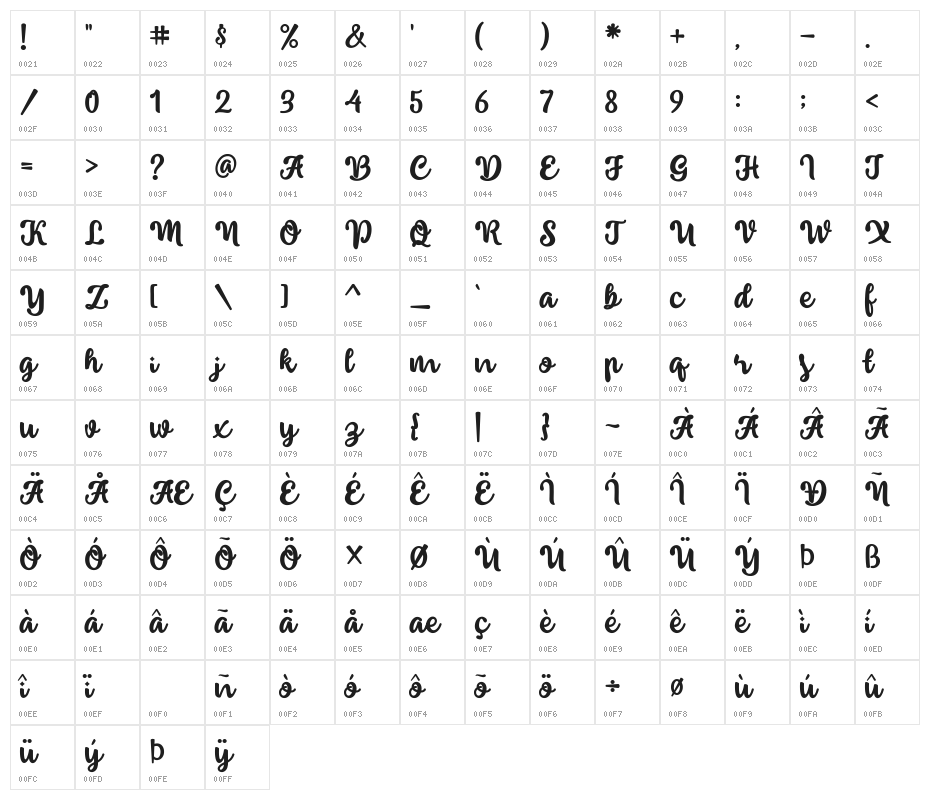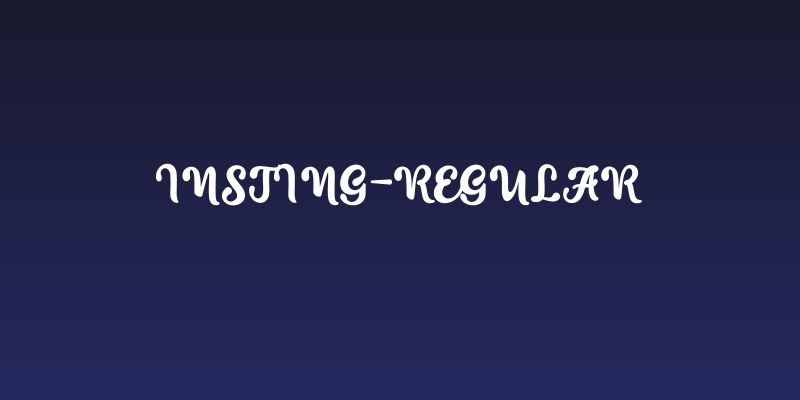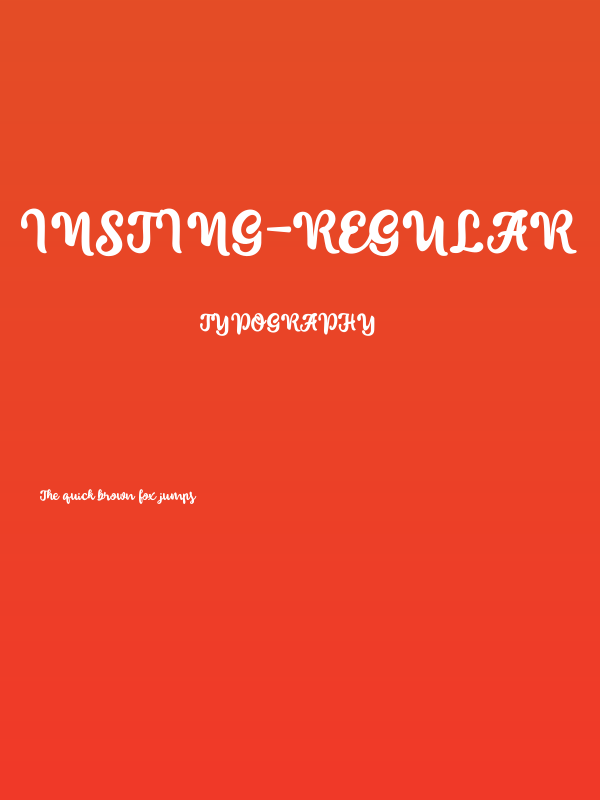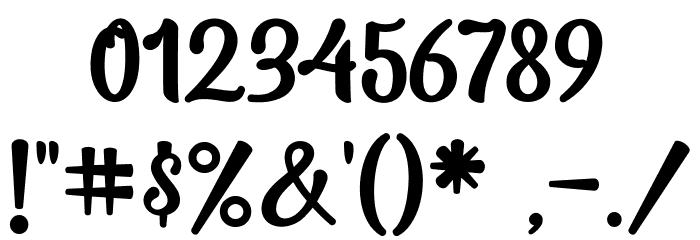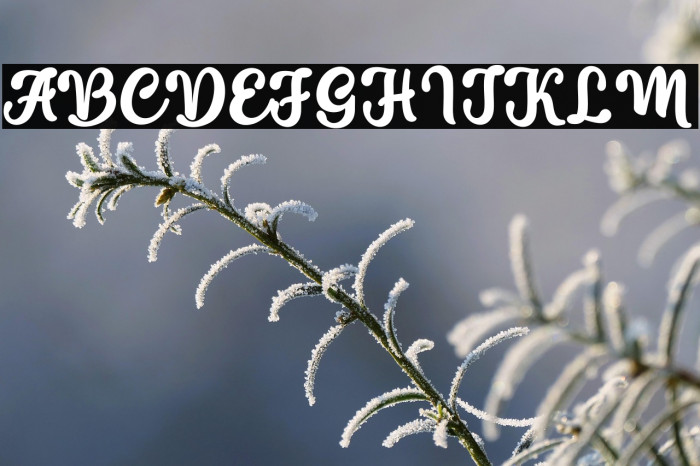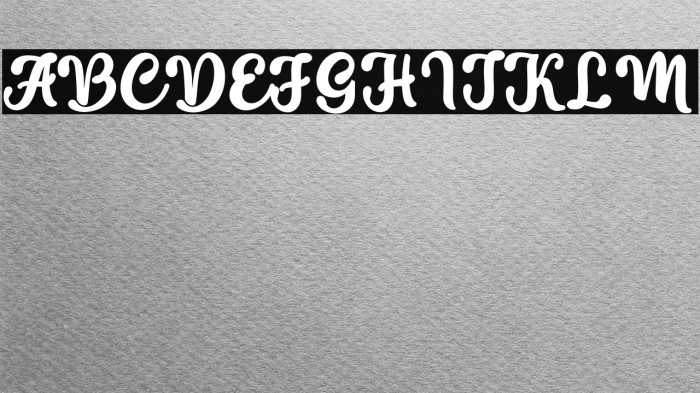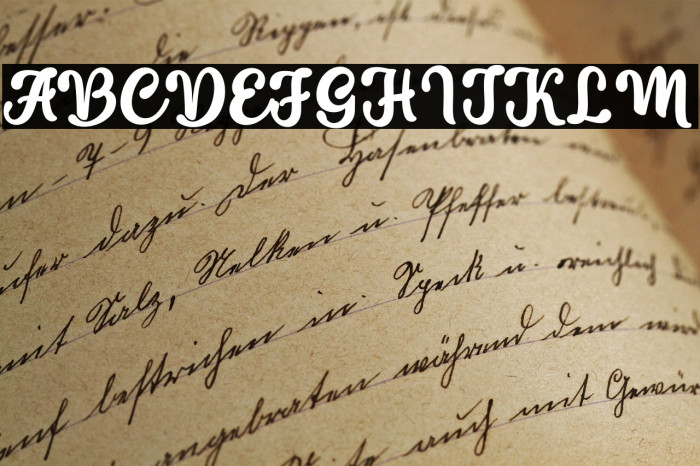
insting-Regular Font
insting-Regular Description
This font features a playful and bold script style with a handwritten feel. The letters are connected, creating a fluid and continuous look that is both casual and elegant. The uppercase letters are slightly larger and more ornate, while the lowercase letters maintain a consistent flow with rounded edges. The numbers and special characters complement the overall style, maintaining the same boldness and fluidity. The font's design is well-suited for projects that require a personal touch or a sense of whimsy.
| Use Case | Logos, Invitations, Greeting cards |
| Proposed Projects | Ideal for greeting cards, invitations, logos, and branding materials that require a personal and whimsical touch. |